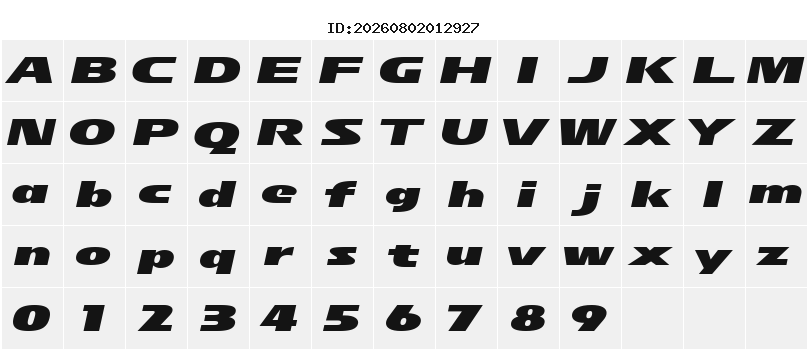
• Font Name: Maximum Line Speeder
Maximum Line Speeder.ttf is a modern, elegant sans-serif font designed for ultimate readability and visual harmony. Perfect for branding, headlines, web design, and print materials.